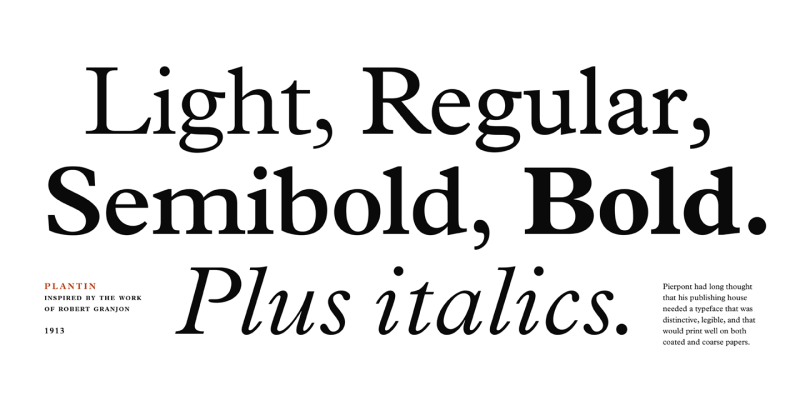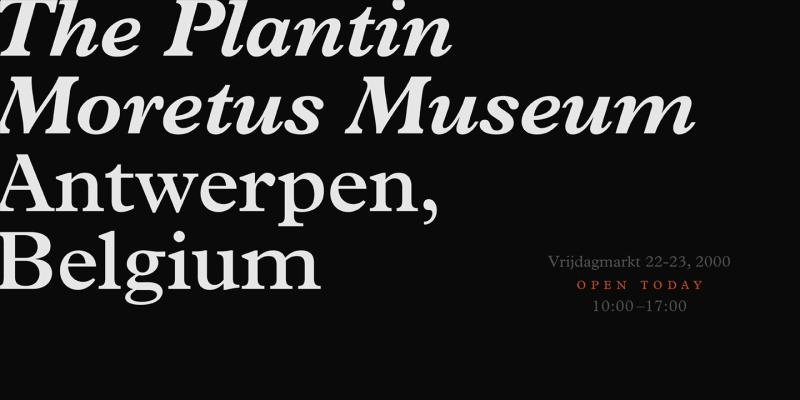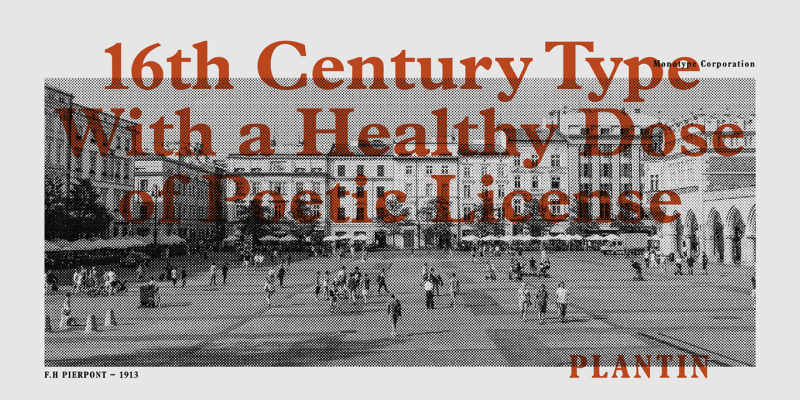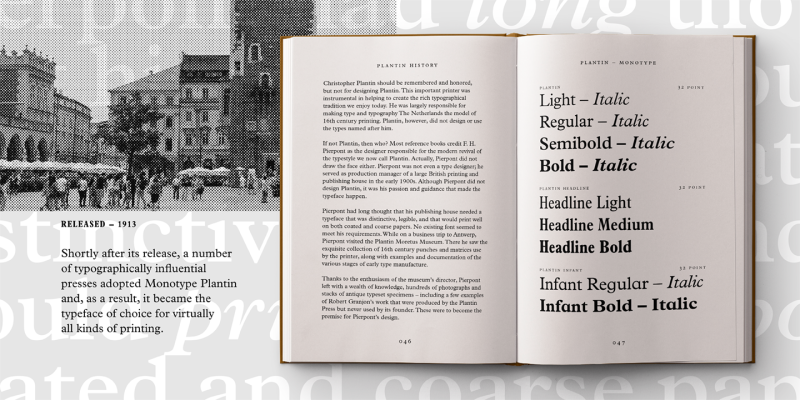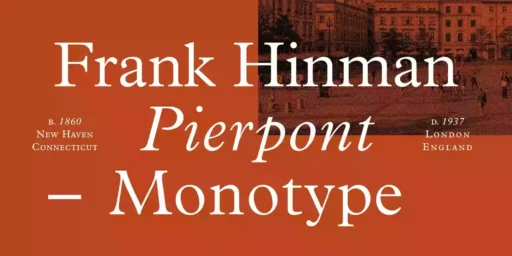
Plantin Font
Plantin is a serif font of the old style class, similar to Garamond. In 1913, Monotype Corporation introduced it as their hot metal typesetting system, named after the B…
Plantin is a serif font of the old style class, similar to Garamond. In 1913, Monotype Corporation introduced it as their hot metal typesetting system, named after the Belgian printer Christophe Plantin, who lived in the 16th century. The font is rather loosely based on a Gros Cicero roman type cut for Robert Granjon in the 16th century and held in the collection of the Plantin–Moretus Museum, Antwerp. It has a rich history and timeless elegance with thousands of typographers and designers.
The Plantin font is emblematic with serifs and balanced proportions, and it is appropriate for many design projects. In this article, we will provide a background, layout features, relevance, and use cases of the Plantin font in print and digital media.
The Plantin Font comes from the 16th century when Christophe Plantin opened his printing house in Antwerp. Besides being a successful printer, Plantin was also the first to design a font that would allow readers to read his publications more fluently and give them a pleasant visual experience. He worked with the famous punchcutter Robert Granjon to perfect a typeface depicting those essential attributes.
Eventually, the creators assembled it, following the publication of the font. The procedure included corrections to meet the printing industry needs of that time. In the West and elsewhere, people started using the font extensively. The way it provides different types of publications, such as literature, newspapers, and ads, increased its impact.
Plantin is a font type with elegant serifs, a little bit of contrast between thick and thin strokes, and a large x-height. The serifs are bracketed, i.e., they have curved ends that connect to the main strokes of every letter. This creates a retro look that is stylish and posh at the same time.
X-height in lowercase letters is a portion of the height above the largest letter. With the Plantin font, the x-height is particularly tall, so this font is still legible even if it is a smaller type size. Moreover, the typeface font is open counters, which are the space in letters for instance ‘o’ and ‘e’. These design features merge into a figure with harmony and a correlating balance, making it attractive to the eye.
Compared to other well-known fonts, like Garamond and Baskerville, the Plantin Font has a distinct blend of being aesthetic and readable simultaneously. Garamond is thinner and more sophisticated, while Baskerville features a marked contrast between thick and thin lines. Still, the Plantin Font corresponds to both types, making it more universal and appropriate for various implementations.
The Plantin Font has found its way in print and digital media by displaying its flexibility, which helps arrange diverse platforms. For centuries, print media has employed many different fonts, found in books, newspapers, and walking posters. Due to its clean and classic aesthetic, it is a highly legible font often used for the body of the text, headlines, and captions.
As digital media continues to evolve, web designers have factored in the Plantin Font due to its readability on diverse screen sizes. People commonly use this in website banners, menu buttons, and for entire articles and paragraphs. The clear-cut lines and justice balance the letter get-up even at low sizes so they are still clear and legible.
The Plantin typeface’s interlingual feature becomes evident when it is used in the context of more languages and writing systems. Extending to diacritics, ligatures, and alternate characters designed for multilingual typography is a standard feature of this character set, which is its hallmark.
The Planting’s typography still governs modern typography today. It is an ideal choice for perfect and classic shapes, and many designers have used it as their inspiration. The font’s effect can be clearly seen on every project, from logo designs to book covers.
Modern designers may employ this font style to display something traditional and handmade about the artists. In this way, the designers borrow from and celebrate the immense history of typography by connecting the present to the past.
Besides, the word mark can be seen in some fields nowadays through its influence on contemporary design styles. It is best known for various design projects, which include logo design, packaging, and digital platforms. The range of possibilities and timeless character of the word mark makes it a precious tool for designers who want to create designs that stick in a person’s mind forever.
Many design projects have successfully used the Plantin Font to develop beautiful, robust designs. One illustration is an upmarket hotel branding. The attractive and classy font type with the right proportions was applied to logos, signage, and promotional material, producing a sense of luxury and uniqueness.